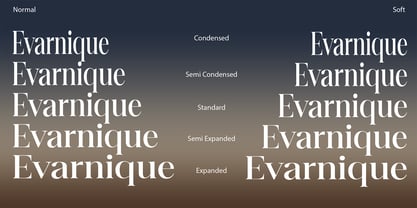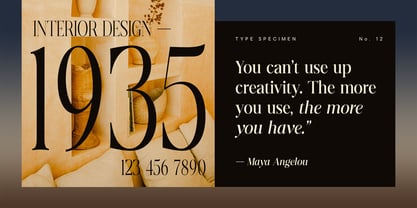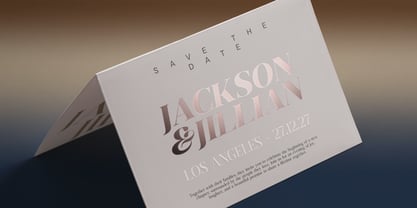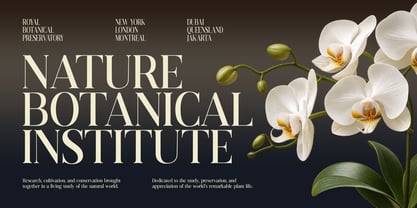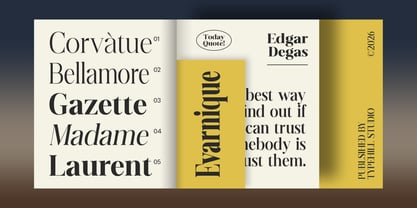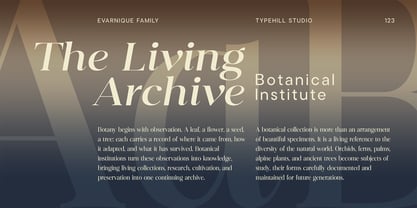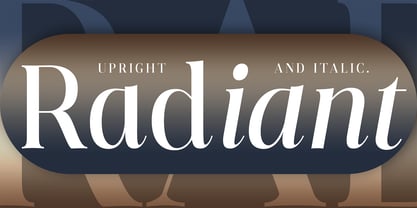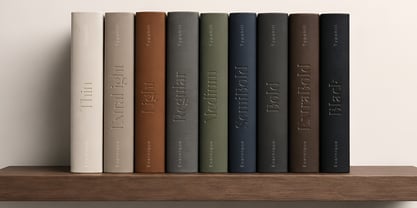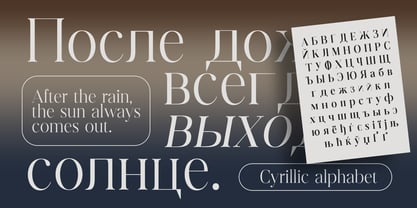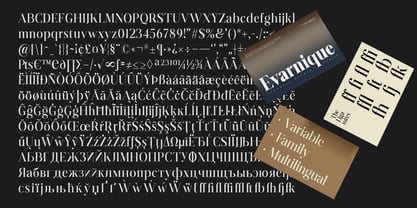
Evarnique
von Typehill Studio
Die Schriftfamilie Evarnique wurde von Teuku Fahruddin entworfen und von Typehill Studio veröffentlicht. Evarnique enthält 273 Stile und Familienpaketoptionen. Mehr über diese Familie
Evarnique is a sophisticated and versatile serif typeface designed to bring elegance, character, and creative flexibility to modern typography.
Featuring an impressive 270 styles, Evarnique offers a wide range of typographic possibilities for both refined and expressive designs. Its carefully crafted serif forms combine timeless elegance with a contemporary character, making it suitable for a variety of creative projects.
Perfect for editorial design, luxury branding, fashion, magazines, posters, invitations, packaging, advertising, and display typography, Evarnique provides the flexibility to create distinctive and polished visual identities.
With its extensive stylistic range, Evarnique allows designers to explore different typographic expressions while maintaining a cohesive and sophisticated appearance.
Evarnique — 270 styles, endless possibilities.